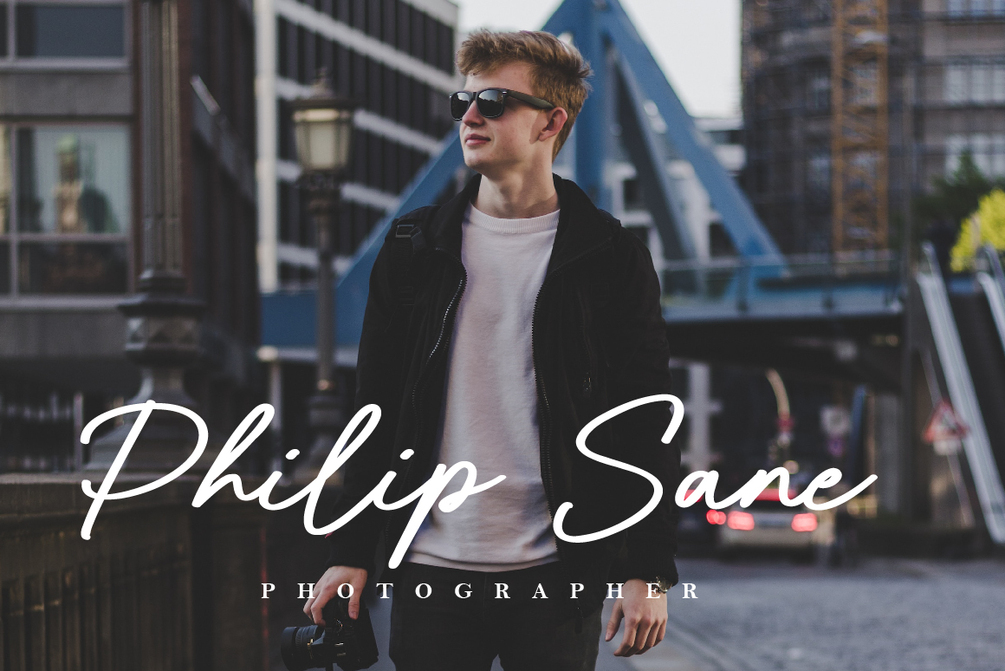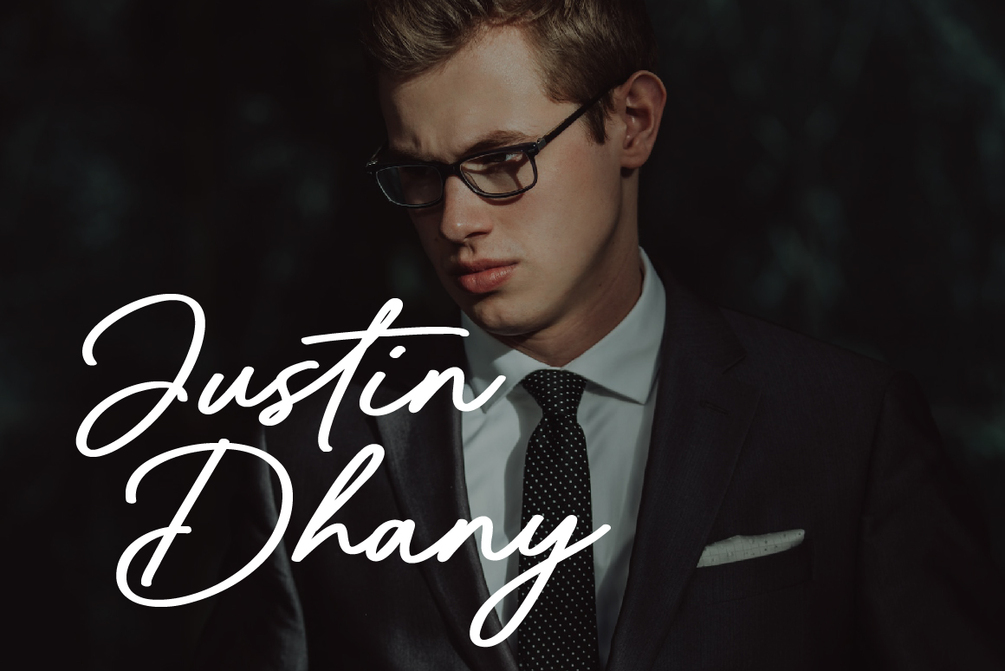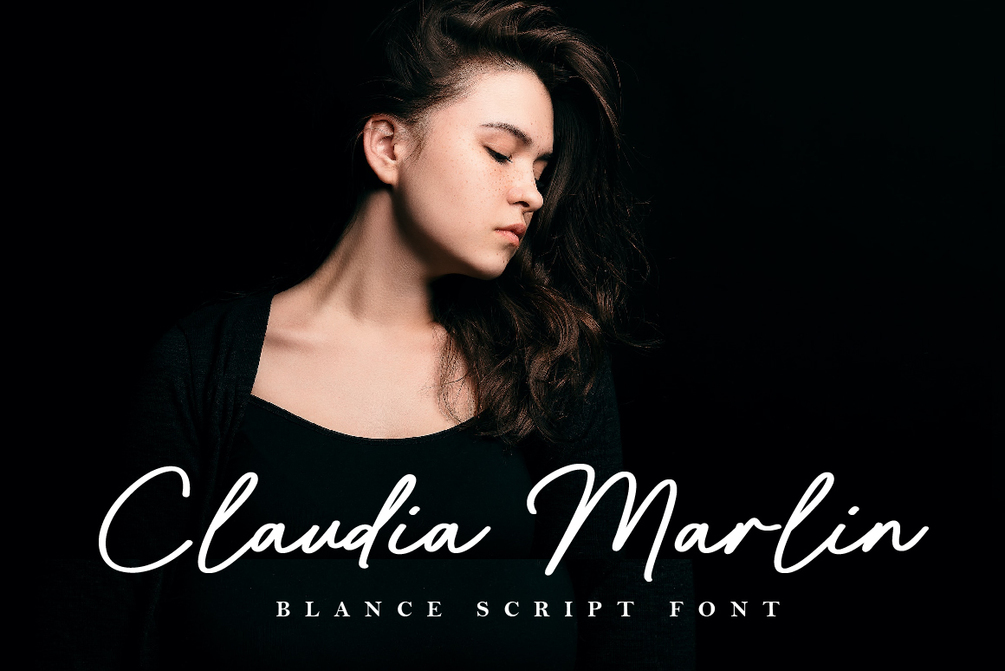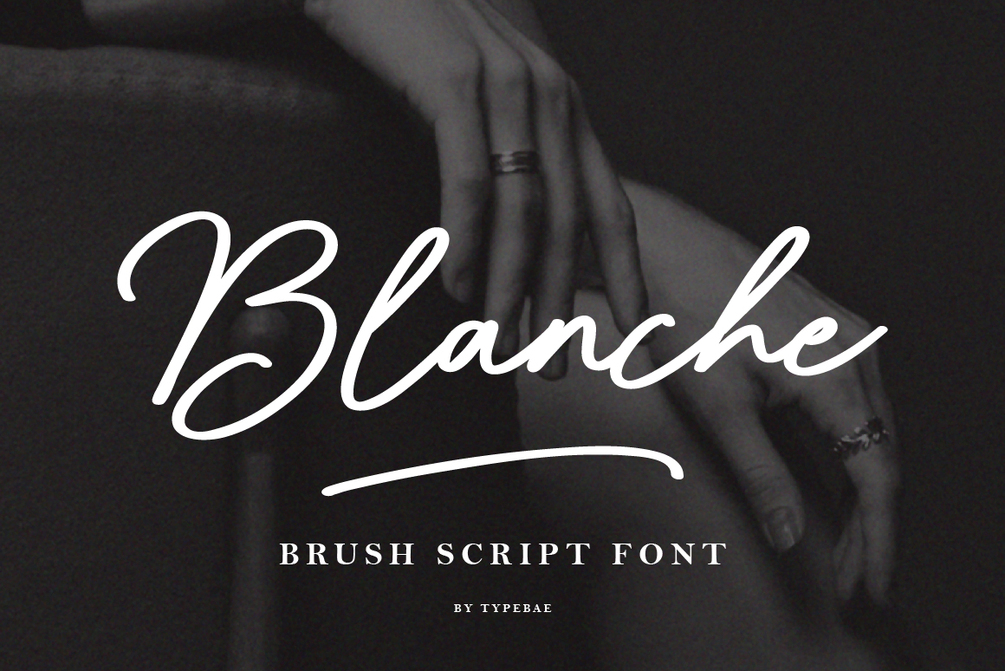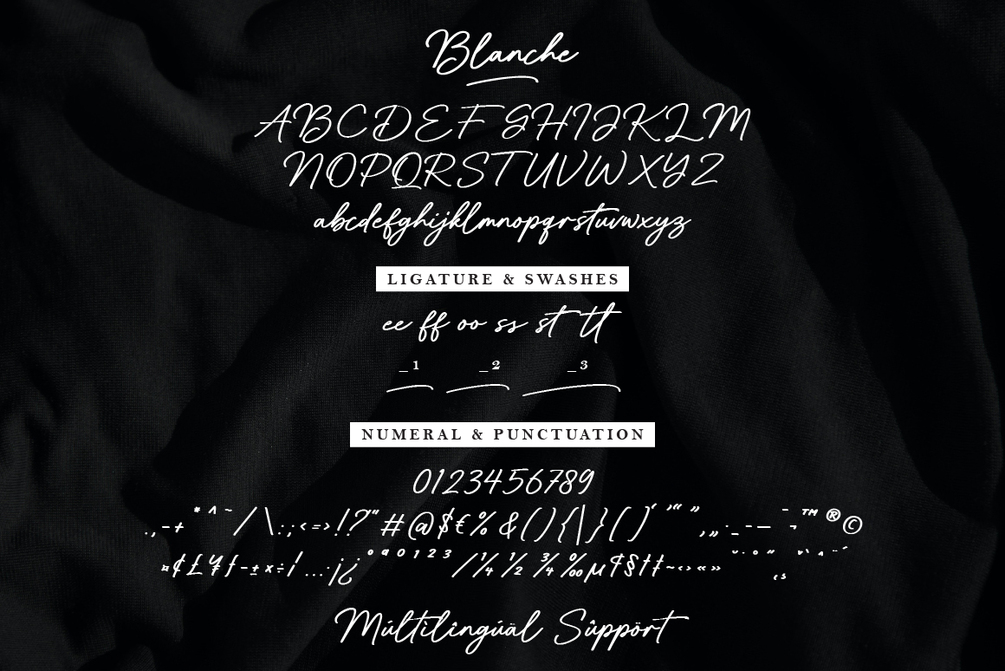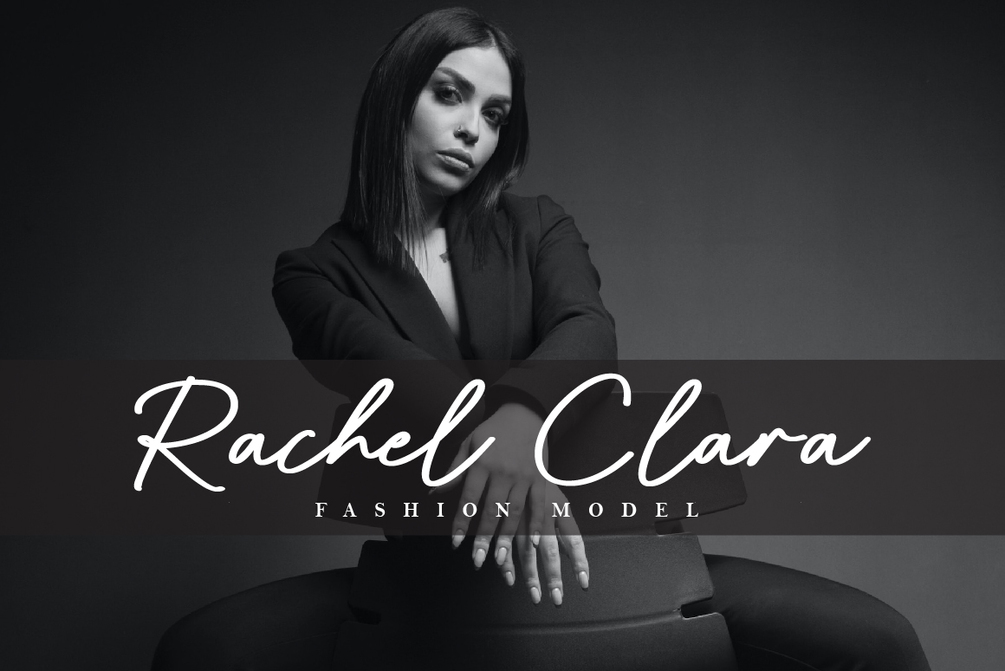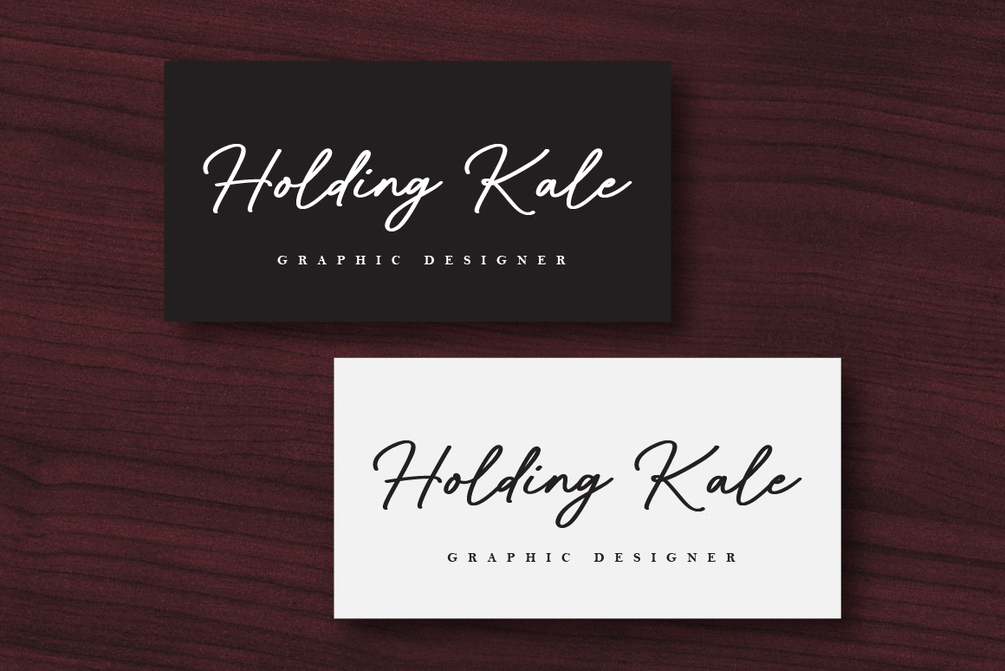
Blanche
Blanche font is a stunning handwritten brush script font that exudes beauty and elegance. Blanche font is perfect for creating luxurious branding materials, wedding invitations, greeting cards, and other projects that demand a touch of handwritten charm.
• Uppercase, Lowercase and Punctuation
• Ligature feature